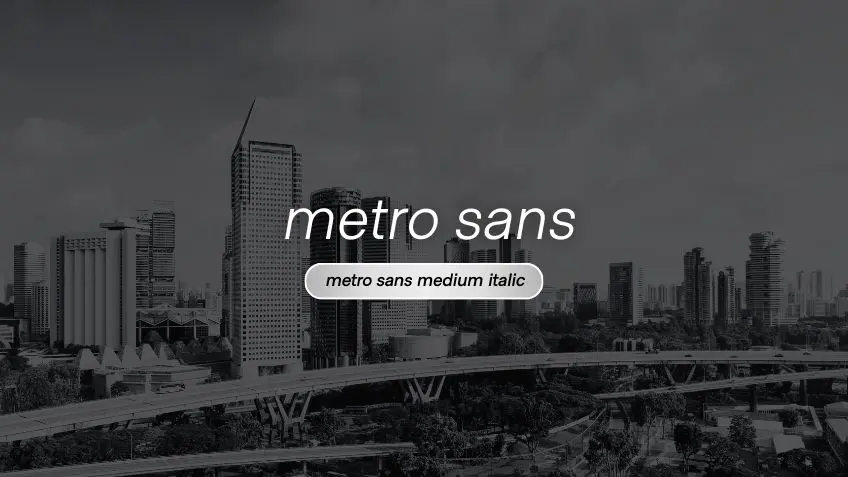
Metro Sans Medium Italic
Metro Sans Medium Italic Font
The font Metro Sans Medium Italic, designed by Samuel Oakes, falls under the Sans Serif category & Metro Sans font family. Its smooth, flowing letterforms make it a versatile choice for projects that require both elegance and readability. Metro Sans is particularly well-suited for Packaging, Body Text, Digital Media, Headlines and Titles and Branding and Logos. With its balance of simplicity and decorative appeal, this font brings a polished touch to both personal and professional designs.